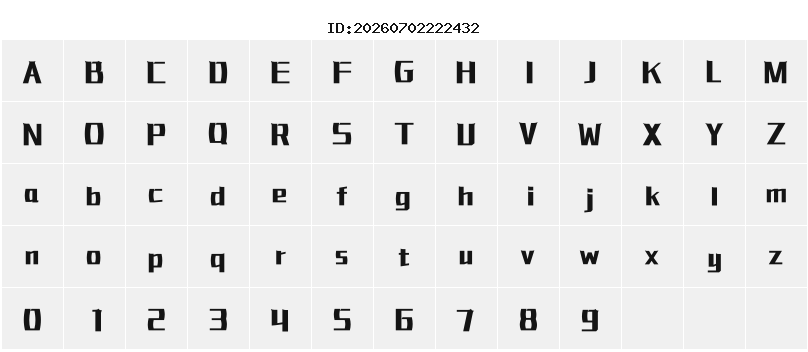
138-上首星斗体 Preview
• Font Name: 138-上首星斗体
• Full Font Name: 138-上首星斗体
About 138-上首星斗体.ttf
138-上首星斗体.ttf is a modern, elegant sans-serif font designed for ultimate readability and visual harmony. Perfect for branding, headlines, web design, and print materials.